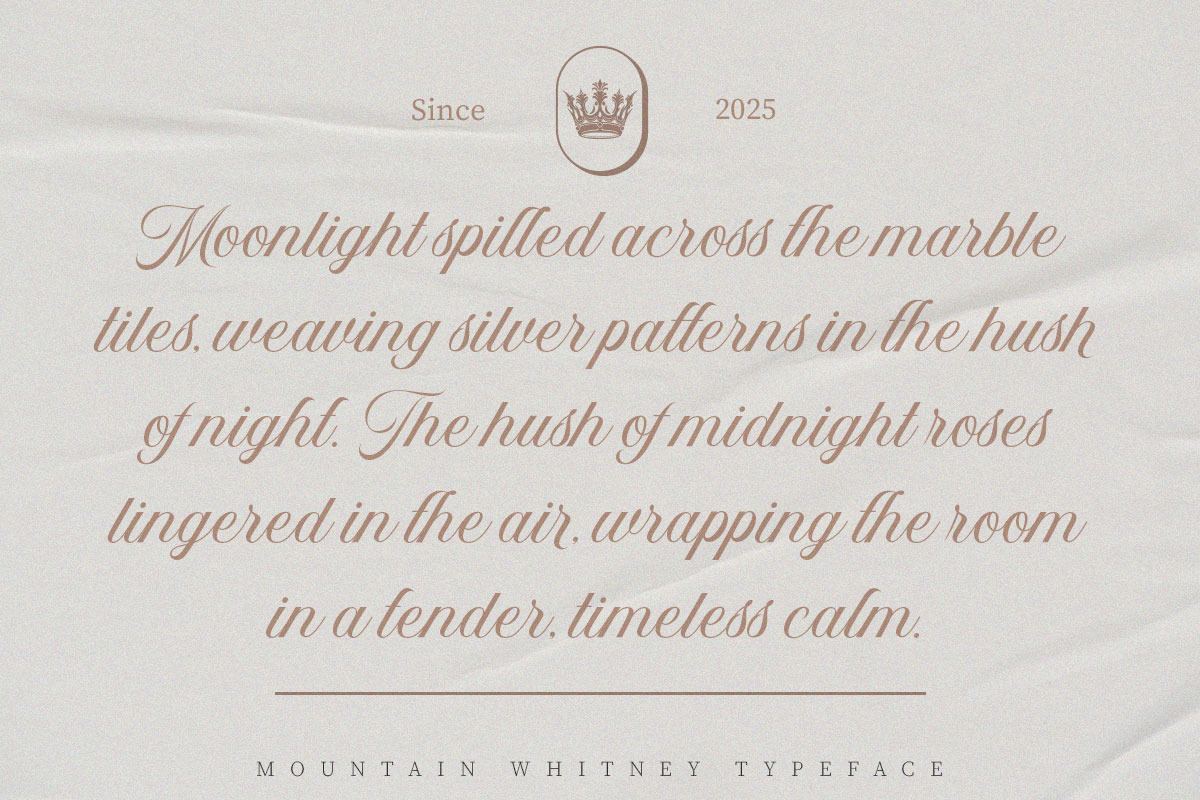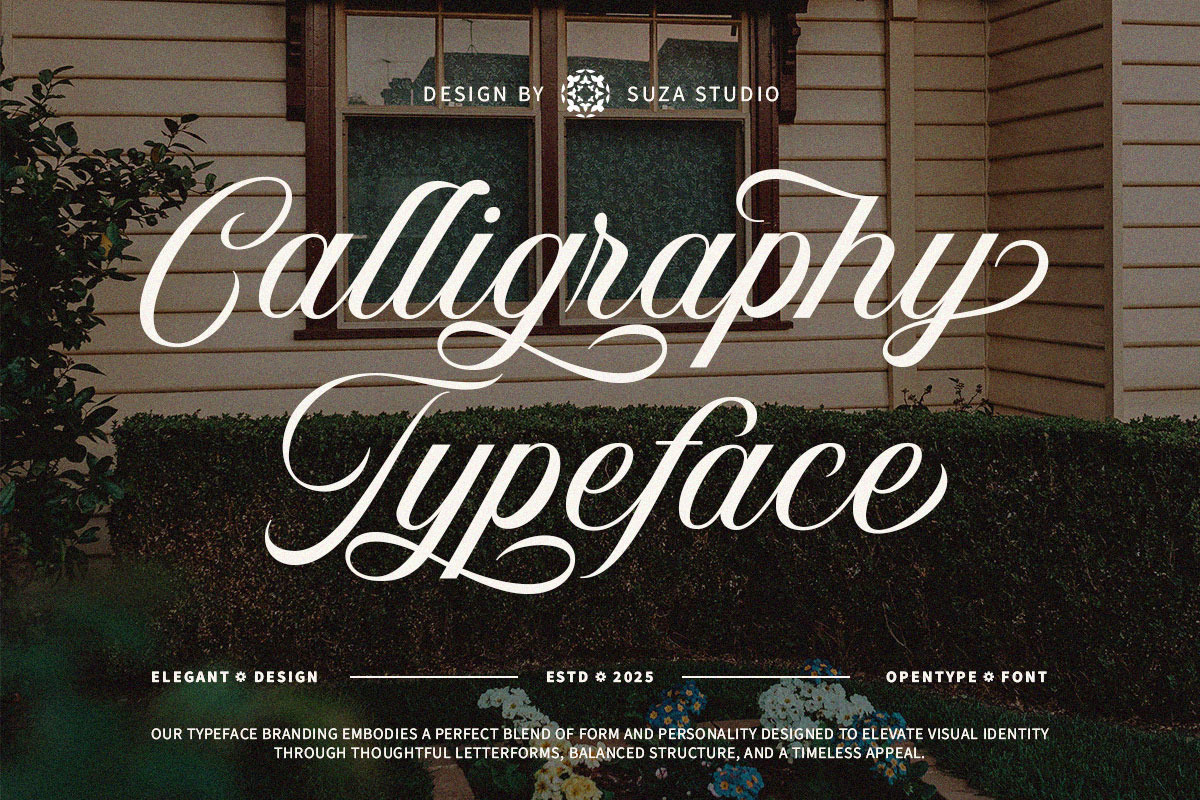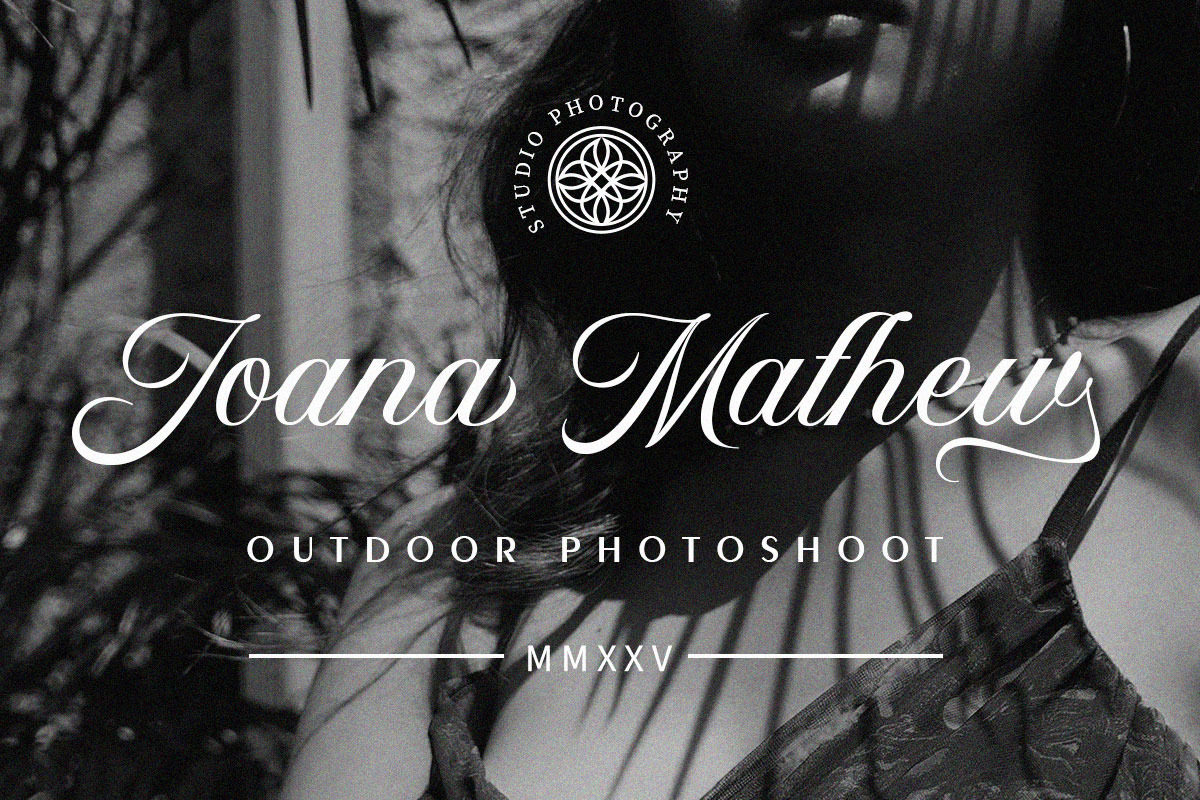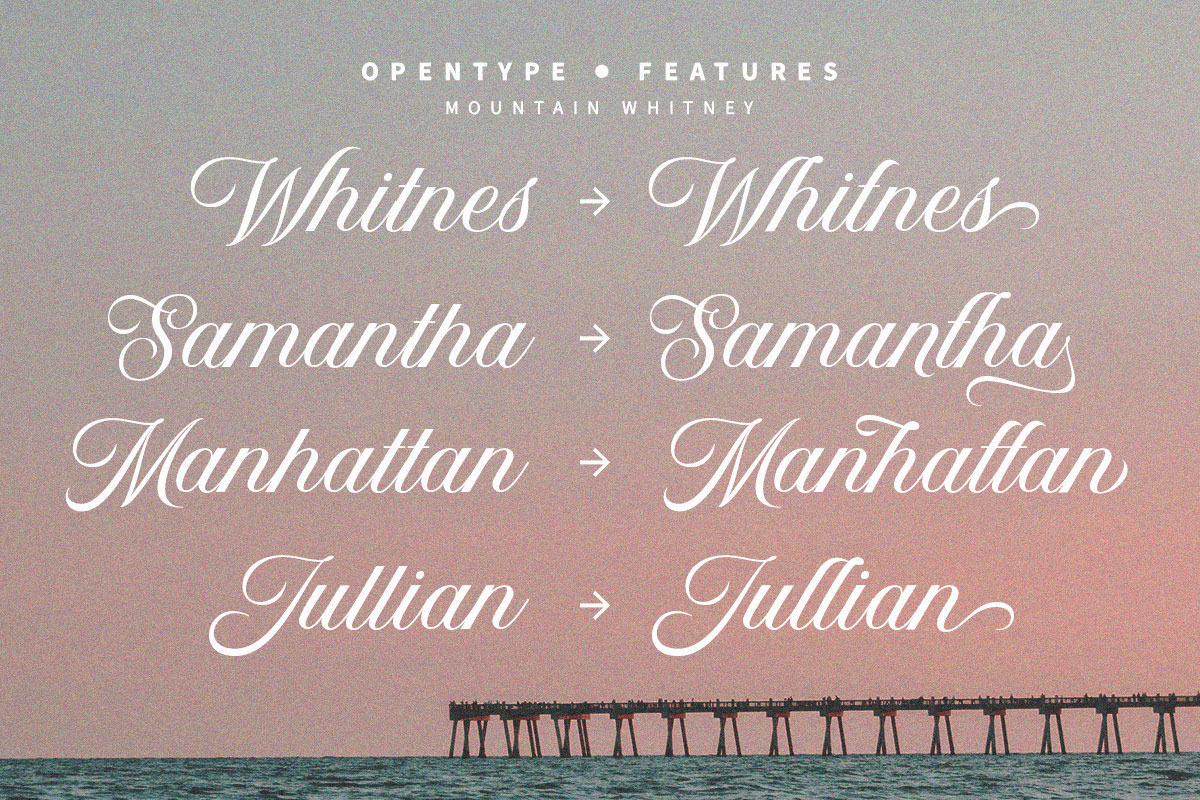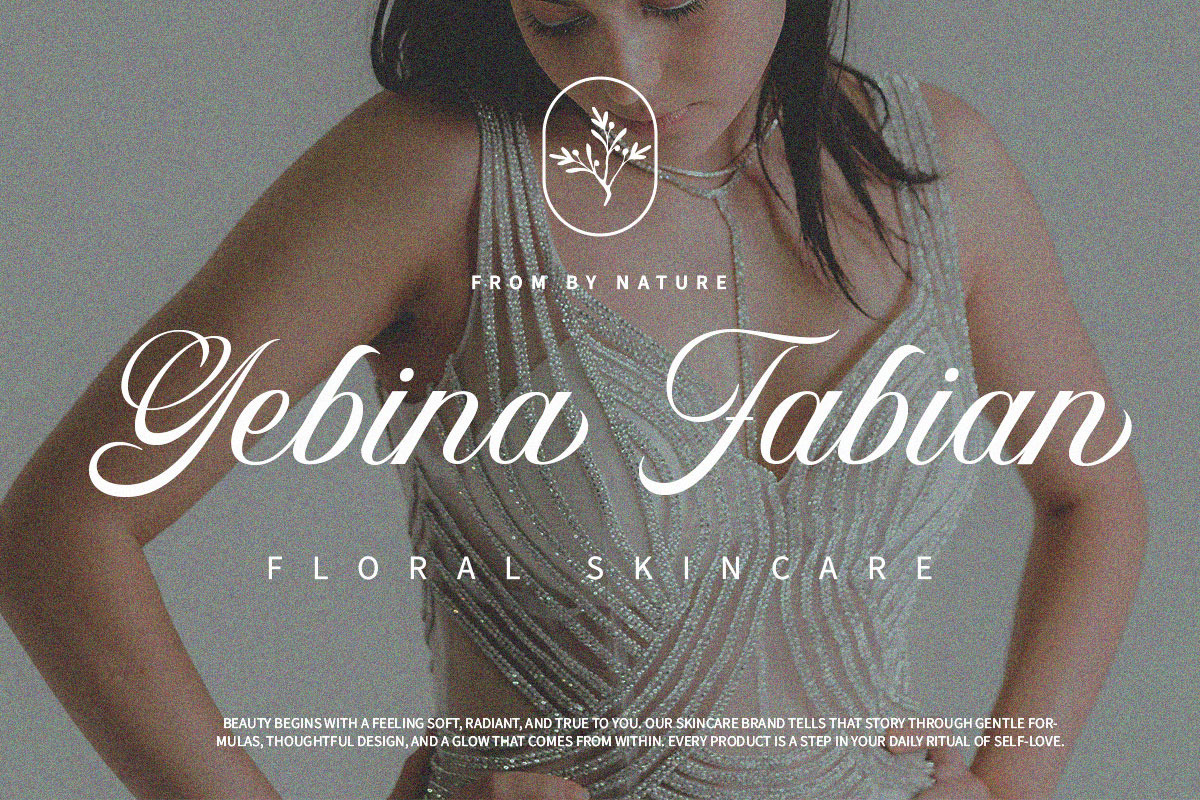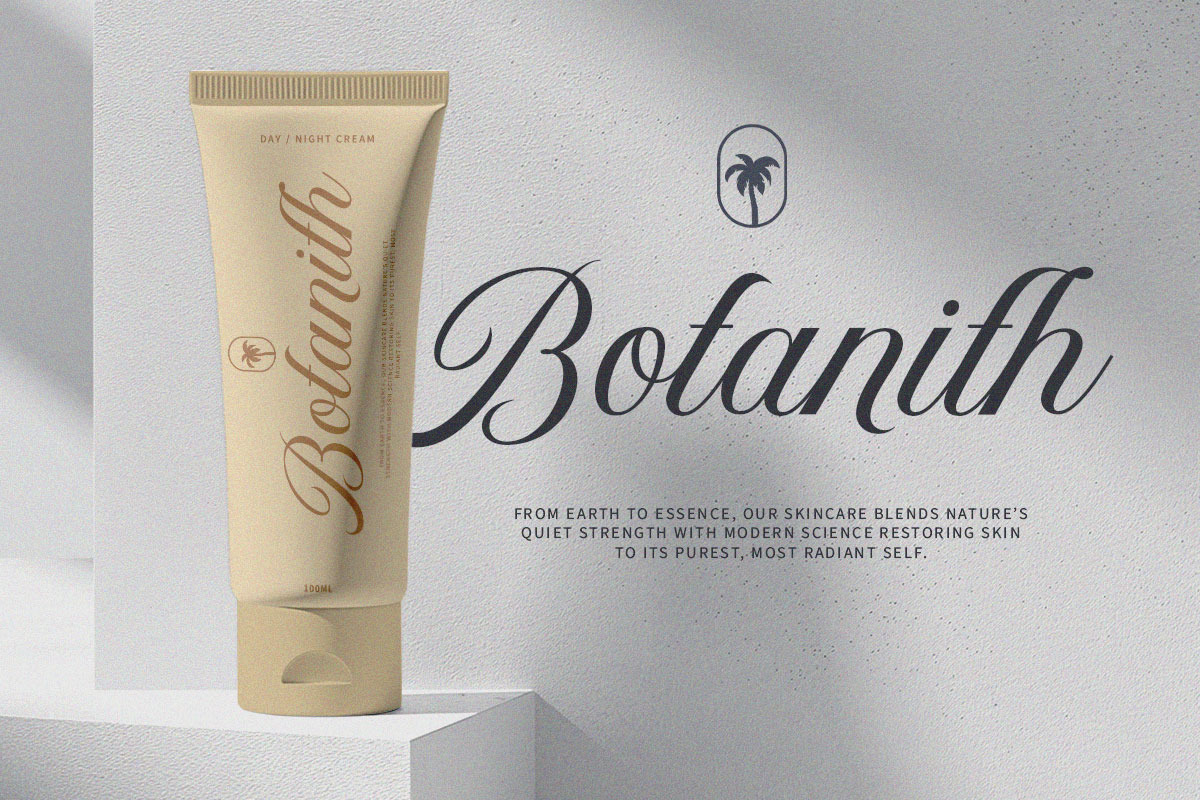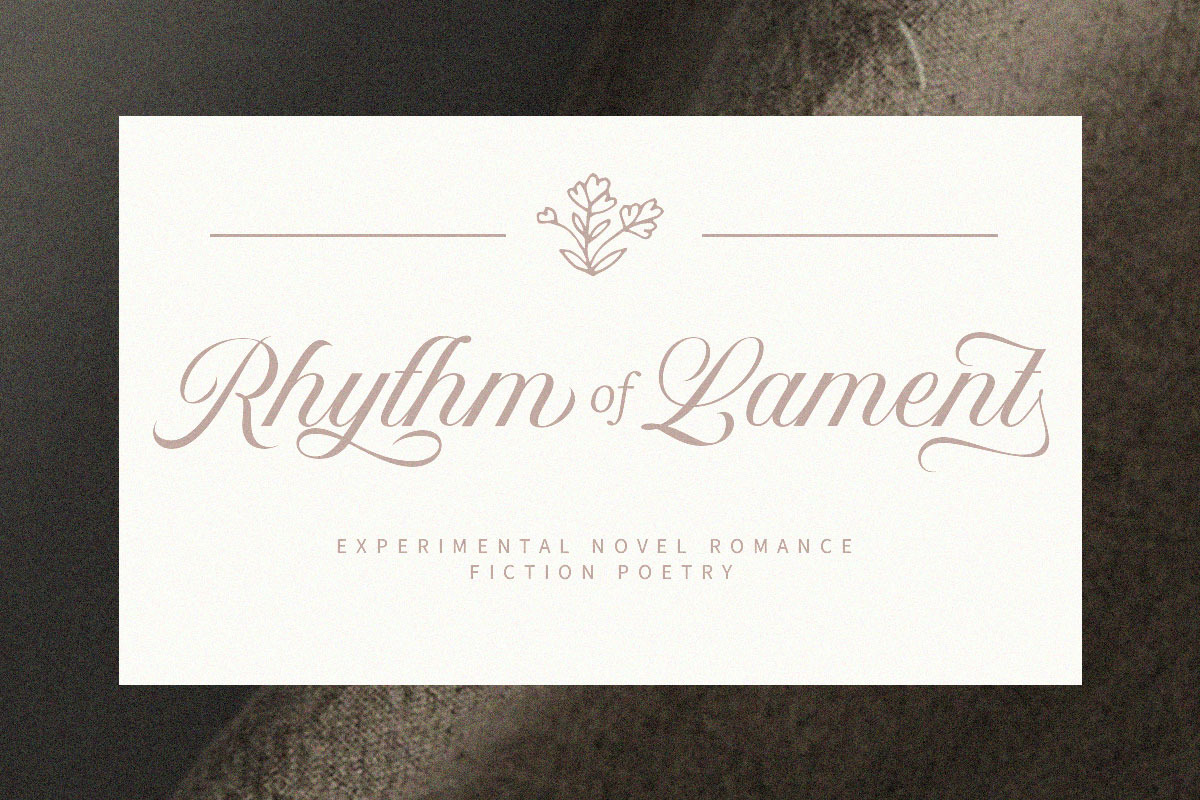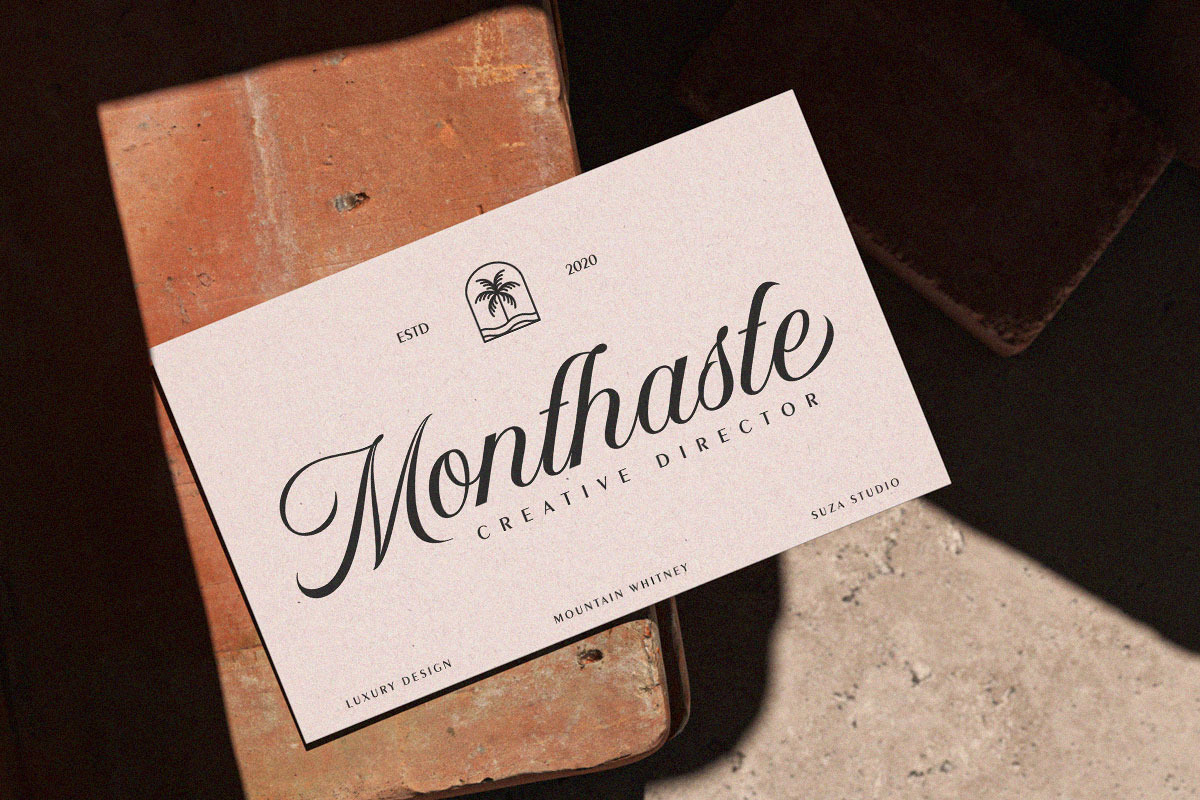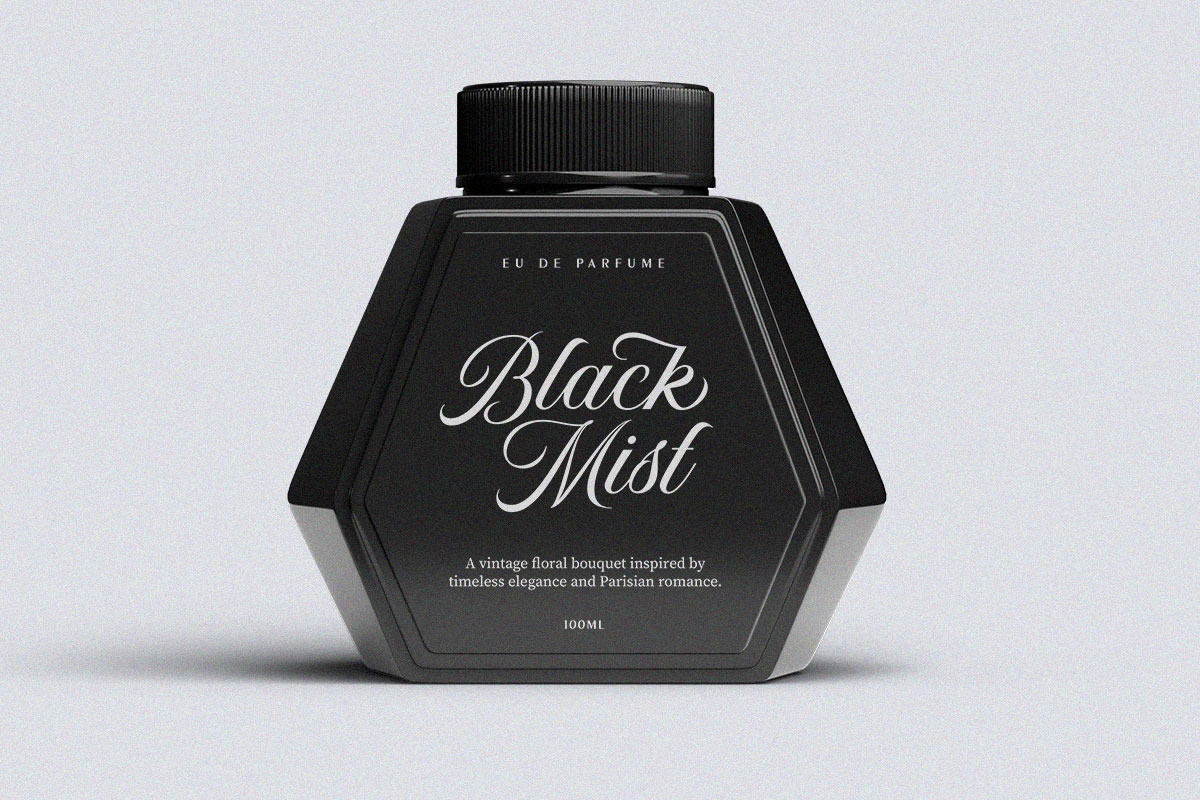
Mountain Whitney
Mountain Whitney is an elegantly styled calligraphy script font that comes with beautiful alternate characters. a mix of copper calligraphy with handlettering style. Designed to present an elegant style. Mountain Whitney is attractive because it is smooth, clean, feminine, sensual, glamorous, simple and very easy to read. The classic style is very suitable to be applied to all types of formal items such as invitations, labels, menus, logos, fashion, make up, stationery, letterpress, romantic novels, magazines, books, greeting/wedding cards, packaging, labels.
Mountain Whitney features 357+ glyphs and 155 alternate characters and ligatures, including multiple language support. With OpenType features with alternative styles, ligatures and swash characters that allow you to mix and match pairs of letters according to your design, and also a touch of ornamentation makes this font look elegant.